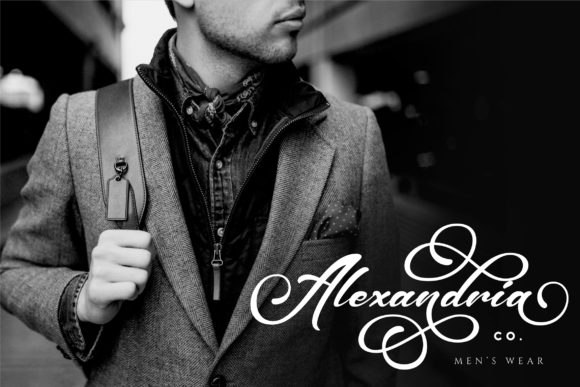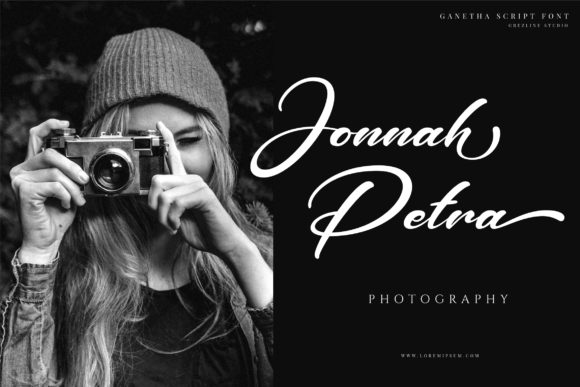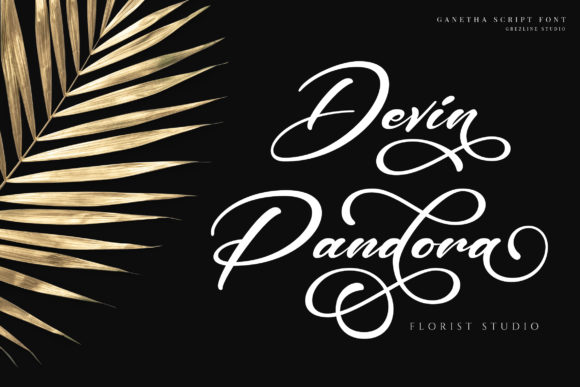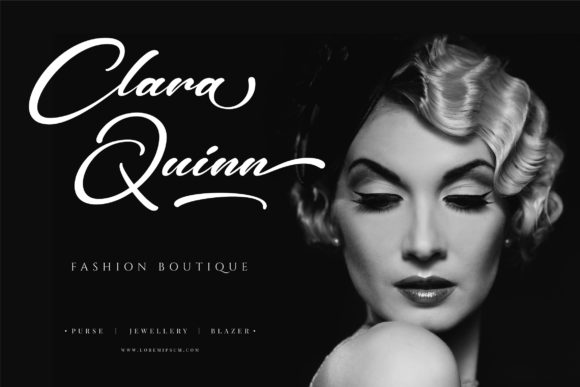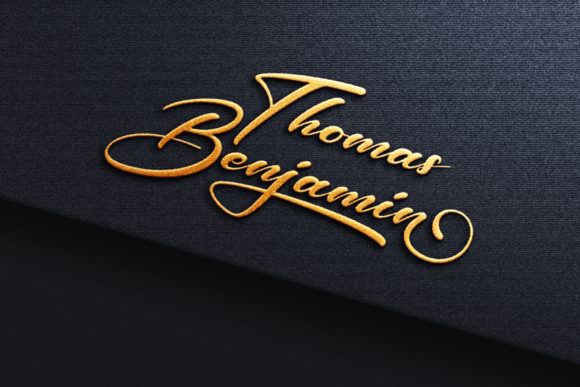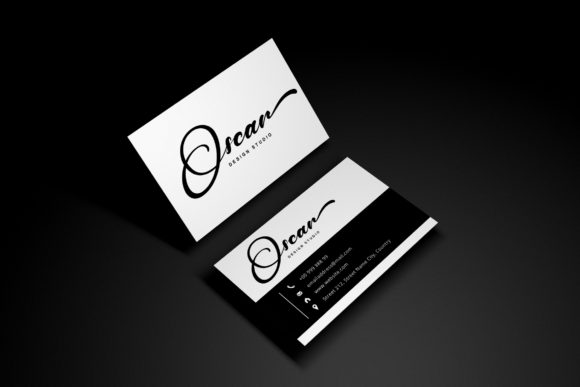
Introduction to Ganetha Font
Ganetha is an elegant and flowing handwritten font.
It is PUA encoded which means you can access all of the glyphs and swashes with ease It maintains its classy calligraphic influences while feeling contemporary and fresh.
Key Features of Ganetha Font